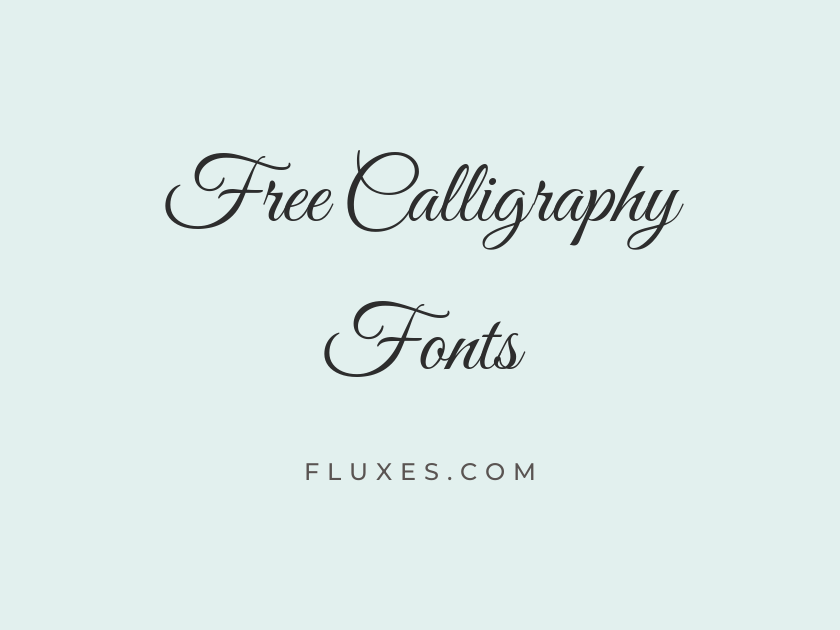
65 Best Free Calligraphy Fonts
Calligraphy has a way of turning a plain sentence into something that feels handwritten, intimate, and considered, and that magic is exactly why designers keep searching out free calligraphy fonts for wedding suites, branding, greeting cards, and social graphics. Google Fonts has quietly become one of the richest sources for this style, with everything from formal pointed-pen scripts to loose brush lettering available to license and download at no cost. The trick is matching the right script to the right mood, since a font built for an elegant invitation rarely works for a playful greeting card, and a bold brush script can overwhelm a logo that needs to stay legible at a glance.
1. Great Vibes
Together forever, joined in love and calligraphy
Few free scripts carry the romance of Great Vibes, with its long entry strokes and generous loops that feel lifted straight from an engraved wedding invitation. It reads best set large, as a headline or monogram accent, since the flourishes start to blur at small sizes.
2. Alex Brush
Handwritten with warmth, signed with style
Alex Brush leans casual for a pointed-pen script, with a relaxed baseline that feels more like a confident signature than formal calligraphy. It pairs nicely with a clean serif body text for save-the-dates or boutique packaging.
3. Allura
Elegant vows written in flowing ink
Allura keeps its letterforms tighter and more upright than most formal scripts, which makes it surprisingly versatile for logotypes as well as invitations.
4. Pinyon Script
An heirloom script for cherished announcements
This one has real pedigree; Pinyon Script is a digital revival of a metal type classic from the early twentieth century, and it still carries that engraved, old-world formality. Use it sparingly, in a title or name, and let plenty of white space around it do the rest of the work.
5. Tangerine
Delicate lettering for a graceful invitation
Tangerine is thin, almost fragile, and works beautifully in gold foil or deep colors on dark backgrounds. At small sizes on screen it can thin out to the point of illegibility, so save it for print or large display text.
6. Parisienne
A romantic script born for French bistros
There is a soft, rounded playfulness to Parisienne that keeps it from feeling stiff or overly formal. It suits menus, perfume labels, and feminine branding as easily as it suits a wedding program.
7. Herr Von Muellerhoff
Ornate calligraphy for a grand occasion
Herr Von Muellerhoff is one of the more ornamented scripts in this list, with dramatic swashes on its capitals that beg to be used as a monogram or opening initial. Keep body copy in something plainer so the drama has room to breathe.
8. Mrs Saint Delafield
A quick, confident hand for warm notes
This script looks genuinely dashed off by hand, uneven in the best way, which makes it ideal for anything that wants to feel personal rather than printed.
9. Mr De Haviland
Fine-tipped calligraphy for a delicate touch
Mr De Haviland shares a family resemblance with Mrs Saint Delafield but reads a touch more refined and controlled, useful when a brand needs charm without looking too casual.
10. Kristi
Soft script lettering for gentle greetings
Kristi is compact and rounded, closer to everyday cursive handwriting than dramatic calligraphy, which makes it comfortable at smaller sizes than most scripts on this list.
11. Rouge Script
Playful calligraphy with a bold personality
Thicker strokes and a slight forward lean give Rouge Script more visual weight than a typical formal script, so it holds up well in short headlines and logotypes.
12. Italianno
Classic Italian-style calligraphy for elegant cards
Italianno keeps its loops long and its baseline steady, giving it a stately, unhurried rhythm that suits formal stationery and monograms.
13. Meddon
A gentle brush script for heartfelt messages
There is a friendly informality to Meddon that softens even serious announcements; it feels handwritten rather than engraved.
14. Mrs Sheppards
Whimsical lettering for storybook invitations
Mrs Sheppards leans playful and slightly childlike, a good match for baby showers, storybook-themed weddings, or greeting card lines that want warmth over polish.
15. Cookie
Sweet script lettering for bakery branding
Cookie’s rounded, candy-like curves make it a natural fit for food and lifestyle branding, especially anything that wants to feel handmade and approachable.
16. Euphoria Script
Joyful calligraphy for celebration invitations
Bouncy and energetic, Euphoria Script trades restraint for personality, and it earns its keep on party invitations and celebratory social graphics.
17. Playball
Bold single-stroke script for confident branding
Playball is a monoline script, meaning its stroke width stays consistent rather than swelling and tapering, which gives it a cleaner, more modern calligraphic feel.
18. Yellowtail
Retro brush script with playful bounce
This one channels vintage soda-shop signage more than fine calligraphy, with thick, confident strokes that read well even at smaller sizes. It is a favorite for logos and badges that want a handmade, nostalgic feel.
19. Dancing Script
Lively cursive lettering that dances across the page
Dancing Script is one of the most downloaded fonts on the entire platform, and its friendly, bouncing baseline explains why. The bold weight in particular holds up well in headlines, buttons, and greeting card covers where a script needs to stay readable rather than purely decorative.
20. Sacramento
Understated script for modern wedding suites
Sacramento is narrower and more restrained than most scripts here, with a light touch that suits minimalist, modern wedding branding rather than anything ornate.
21. Satisfy
Casual brush calligraphy with everyday charm
Satisfy sits comfortably between handwriting and calligraphy, informal enough for social captions but tidy enough for a logo.
22. Marck Script
Natural handwriting with a calligraphic edge
Marck Script feels like a well-practiced hand rather than a designed alphabet, with consistent proportions that make it more legible in paragraph-length text than most scripts attempt to be.
23. Norican
Sturdy script lettering with vintage character
Thicker strokes and a slightly condensed structure give Norican a poster-ready sturdiness; it reads clearly even in all caps, which is unusual for a script face.
24. Bilbo
A friendly handwritten script for casual notes
Bilbo
Bilbo has an unpretentious, slightly wobbly charm that works well for personal blogs, recipe cards, and anything that wants to feel like a friend’s handwriting rather than a formal hand.
25. Calligraffitti
Street-inspired calligraphy with a rebellious streak
Calligraffitti
This one blends brush calligraphy with graffiti tagging energy, an unusual combination that suits streetwear branding or music event posters far better than traditional stationery.
26. Beth Ellen
Delicate handwriting with a nostalgic feel
Beth Ellen
Beth Ellen has the light, slightly uneven quality of a handwritten letter found in a drawer of old keepsakes; it suits scrapbooking and personal branding projects.
27. Mea Culpa
Loose brush lettering for candid messages
Mea Culpa
Mea Culpa looks fast and unfussy, like a note scrawled with a felt brush pen, which makes it a good match for candid, conversational branding.
28. WindSong
Airy calligraphy that feels light as breath
WindSong keeps its strokes thin and its letters loosely connected, giving it an ethereal quality suited to nature-themed weddings or delicate packaging.
• Styles: 2 weights (Regular, Medium)
29. League Script
Vintage advertising script with old-world charm
League Script
Modeled on hand-lettered signage from another era, League Script carries a commercial, almost mercantile feel that suits labels and packaging more than personal correspondence.
30. Qwigley
Ultra-thin monoline script for minimalist design
Qwigley
Qwigley strips calligraphy down to a single fine line with tall, looping ascenders, striking in a logo but genuinely hard to read in anything longer than a few words.
31. Lovers Quarrel
Romantic script with dramatic flourishes
Lovers Quarrel
The extended swashes on the capitals make Lovers Quarrel feel theatrical, best reserved for a title or name rather than a full line of text.
32. Monsieur La Doulaise
Extravagant calligraphy for statement lettering
Monsieur La Doulaise
This is calligraphy at its most decorative, with swashes so large they sometimes need their own line of space; a single word set in Monsieur La Doulaise can carry an entire invitation.
33. Niconne
Bold, friendly script for warm greetings
Niconne
Niconne has a rounder, heavier build than most formal scripts, giving it a cheerful, approachable tone that suits greeting cards and casual branding.
34. Arizonia
Smooth cursive script for timeless invitations
Arizonia
Arizonia is dependable rather than flashy, a clean, connected script that stays legible across a range of sizes, which makes it one of the safer choices for a full name or short phrase.
35. Bad Script
Casual handwriting with an honest imperfection
Bad Script
Despite the self-deprecating name, Bad Script is genuinely useful; its slightly imperfect letterforms give digital designs an authentic, human touch.
36. Charm
Light, elegant script for delicate branding
Charm
Charm’s thin strokes and gentle slant make it feel understated rather than showy, a good pairing partner for bolder display type.
37. Ballet
Fluid calligraphy inspired by classical penmanship
Ballet
Ballet is a variable font that can shift from delicate to more substantial depending on size, and its connected, flowing letterforms genuinely evoke the discipline of classical penmanship.
38. Cedarville Cursive
Everyday cursive with a personal touch
Cedarville Cursive
Cedarville Cursive looks like careful schoolbook penmanship rather than fine calligraphy, which makes it a comfortable, legible choice for longer handwritten-style passages.
39. Damion
Relaxed brush script for laid-back branding
Damion
Damion has an easygoing, slightly imperfect brush quality that suits coffee shops, surf brands, and anything that wants warmth over polish.
40. Dawning of a New Day
Delicate script for hopeful beginnings
Dawning of a New Day
True to its name, this script feels soft and optimistic, thin and lightly connected, well suited to baby announcements and gentle, hopeful messaging.
41. Fleur De Leah
Playful script with a feminine touch
Fleur De Leah
Fleur De Leah keeps its curves round and its strokes light, landing somewhere between casual handwriting and formal calligraphy without fully committing to either.
42. Give You Glory
Expressive brush lettering with heartfelt energy
Give You Glory
The uneven, hand-inked texture of Give You Glory makes it a natural for inspirational quotes and greeting card lettering that wants emotional weight.
43. Grand Hotel
Vintage marquee script for boutique branding
Grand Hotel channels mid-century hotel signage and menu lettering, thick and confident enough to work in logos, unlike many of the finer scripts on this list.
44. Homemade Apple
A cozy, handwritten script for personal notes
This one genuinely looks handwritten with a felt-tip pen, uneven pressure and all, which gives it an unmistakably homemade, personal feel.
45. Imperial Script
Regal calligraphy for formal announcements
Imperial Script
Imperial Script keeps its loops tight and its baseline steady, striking a balance between the restraint of a formal hand and the warmth of real calligraphy.
46. Miss Fajardose
Ornamental script with vintage sophistication
Miss Fajardose
Dense swashes and tight spacing give Miss Fajardose a busy, ornamental richness; it wants generous kerning and plenty of surrounding space to avoid feeling cramped.
47. Montez
Brush calligraphy with a confident slant
Montez
Montez has a thicker, more assertive stroke than many brush scripts, giving it presence in headlines without losing its handwritten softness.
48. Mr Dafoe
Quick, sketchy calligraphy for casual charm
Mr Dafoe
Mr Dafoe looks like it was written fast, with a light touch and slightly erratic baseline that suits informal invitations and social graphics.
49. Nanum Brush Script
Expressive brush lettering with ink-like texture
Nanum Brush Script
Originally developed for Korean typography, Nanum Brush Script carries genuine brush-and-ink texture in its Latin characters too, with visible variation in stroke pressure that feels authentically painted rather than drawn with a vector tool.
• Language support: Latin, Korean
50. Rochester
Delicate vintage script for refined invitations
Rochester
Rochester’s thin, looping strokes recall early twentieth-century engraving, elegant in print but easily lost at small screen sizes.
51. Romanesco
Whimsical calligraphy with a hand-drawn wobble
Romanesco
The slightly irregular baseline in Romanesco gives it a sketched, spontaneous quality that reads as more art than typography.
52. The Nautigal
Free-flowing script for coastal, casual branding
The Nautigal
Loose, looping, and a little unpredictable, The Nautigal has an easy, beachy informality that suits lifestyle branding more than formal stationery.
53. Vujahday Script
Bright, modern calligraphy with playful energy
Vujahday Script
Vujahday Script mixes calligraphic structure with a more contemporary, illustrated feel, a good fit for greeting cards and packaging aimed at a younger audience.
54. Zeyada
Simple handwritten script for friendly messages
Zeyada
Zeyada is unassuming and easy to read, closer to natural handwriting than performance calligraphy, which makes it useful anywhere a script needs to stay out of the way.
55. Yesteryear
Retro script lettering with a nostalgic wink
Yesteryear
Yesteryear borrows its rhythm from mid-century advertising lettering, cheerful and slightly quirky rather than elegant.
56. Condiment
Bold calligraphic swashes for statement labels
Condiment
Condiment’s thick, confident strokes and dramatic capital swashes make it stand out on packaging and labels where a script needs to compete for attention.
57. Kolker Brush
Loose brush calligraphy with organic texture
Kolker Brush
Kolker Brush looks genuinely painted, with tapered strokes and rough edges that give it real brush-and-ink character.
58. Lavishly Yours
Delicate monoline script for modern weddings
Lavishly Yours
Lavishly Yours has become a favorite in current wedding design for its fine, even strokes and long, elegant flourishes; it photographs beautifully on foil-stamped invitations.
59. Beau Rivage
Effortless script for elegant, understated invitations
Beau Rivage
Beau Rivage keeps its swashes modest and its baseline relaxed, giving it a lived-in elegance that avoids feeling overly formal.
60. Corinthia
Sweeping calligraphy with dramatic long strokes
Corinthia
Corinthia’s extended entry and exit strokes give it real drama; used as a name or single word, it can anchor an entire invitation suite on its own.
61. My Soul
Warm, retro-inspired script with gentle curves
My Soul
My Soul has a nostalgic, hand-lettered warmth reminiscent of old greeting cards, comfortable rather than showy.
62. Merienda
Rounded script with sturdy, modern proportions
Merienda
Merienda offers a range of weights, and the bolder cuts give this script unusual sturdiness for headlines and branding where thinner scripts would disappear.
• Styles: 7 weights (Light to Black)
63. Licorice
Playful monoline script with candy-like curves
Licorice
Licorice is light, rounded, and a little whimsical, well suited to packaging or branding that wants charm without formality.
64. Engagement
Fine calligraphy designed for wedding stationery
Engagement
As the name suggests, Engagement was built with wedding stationery in mind, a delicate, evenly weighted script that behaves predictably across names and short phrases.
65. Petit Formal Script
Compact calligraphy with old-world formality
Petit Formal Script keeps its loops tidy and its proportions narrow, making it one of the more space-efficient formal scripts here, useful when a design has limited room for a flourish-heavy alternative.
Pairing and Using Calligraphy Fonts Well
Most calligraphy fonts want a plain partner. Pair a decorative script with a simple sans serif or an understated serif for body copy, and let the script carry the emotional weight in headlines and names alone.
Size matters more with these fonts than almost any other category. What looks graceful at sixty points can turn into an illegible tangle at twelve, so always test a script at the actual size it will appear before committing to it.
Spacing needs attention too. Scripts are designed to connect, so avoid adding letter spacing that breaks their natural rhythm, and give ornamented swashes room to breathe rather than crowding them against other elements.
For anything read on screen at small sizes, lean toward the more legible options in this list, such as Cedarville Cursive, Marck Script, or Zeyada, and save the finer, thinner scripts like Tangerine or Qwigley for large print pieces.
Calligraphy fonts carry more personality per letter than almost any other type category, which is exactly why a small library of them is worth keeping on hand. With this many free, genuinely well-made options available directly through Google Fonts, there is rarely a reason to reach for a paid script unless a project needs something truly custom.